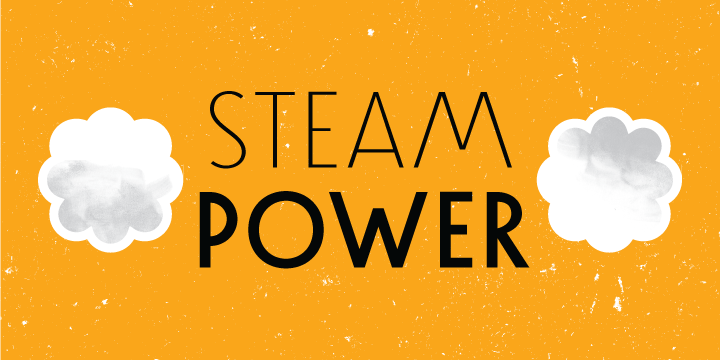
Steamer
Steamer is a font designed by Erik Jarl Bertell. This is for continuous text , bold headlines . A tireless workhorse, it is accustomed to carrying out any typographic task Get Steamer font on MyFonts Steamer font detail Foundry: Erik Jarl Bertell Released: Jan 22, 2013 Price: $37.49 from $149.95